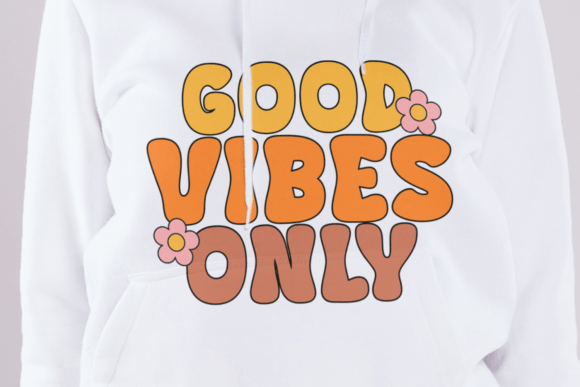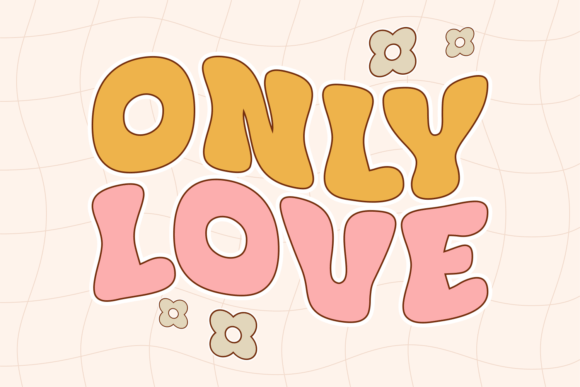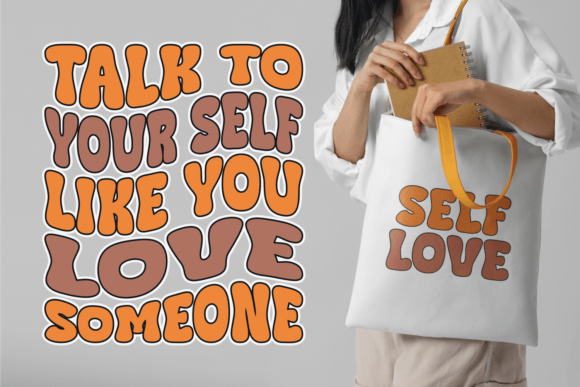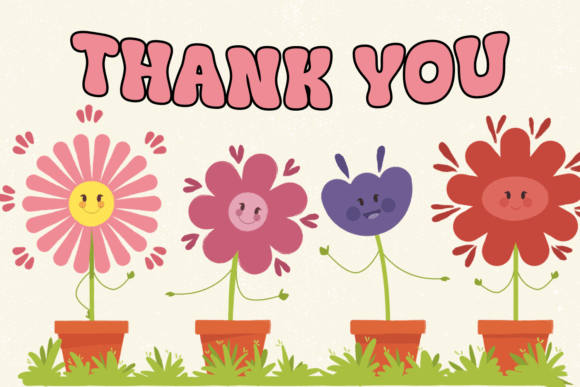
Introduction to Retro Kaka Font
Retro Kaka is an excellent retro-style display font.
Take your typography designs to the highest level with this fun and groovy typeface This charming set of characters looks perfect on posters, signage, apparel, kids’ t-shirts, cards, invitations, headlines, titles, and more.
Key Features of Retro Kaka Font
Why Choose Retro Kaka Font?
Retro Kaka Font offers exceptional quality and versatility, making it a valuable addition to your design toolkit. Whether you’re creating for personal projects or commercial use, Retro Kaka Font delivers professional results.